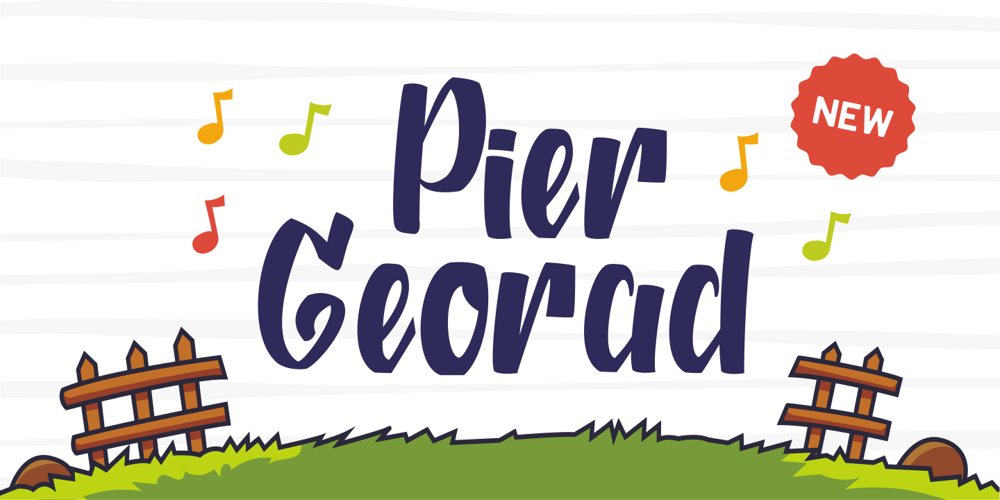
Pier Georad
Pier Georad font
Pier Georad Font Family was designed by Fype and published by Fype Co. Pier Georad contains 1 styles and family package options. Pier Georad is a great, casual and playful typeface designed in 2020. This font can be used for anything such as logo, packaging, poster, branding, header, poster, apparel, and other cute or casual design projects.